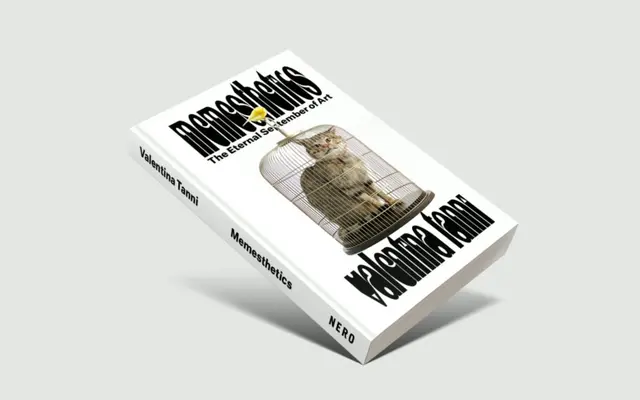
Naive
Writtenshape · Raphaël de La Morinerie & Benoît Brun
A single-weight geometric display face reinterpreting Flemming Bau's circle-based 1972 typeface, extended with new uppercase characters for contemporary use.
Built on the circle-based logic of Flemming Bau's original 1972 Bau typeface, this revival adds a full uppercase set drawn on a geometric system that was absent from the source material. The letterforms carry a deliberately resistant quality, slowing reading in favour of visual impact, which makes them suited to posters, logotypes and headlines where attention is the primary goal. Designed by Raphaël de La Morinerie and Benoît Brun at Writtenshape, it covers an extended Latin character set.
Circle-based letterforms with psychedelic and geometric construction, derived from Flemming Bau's 1970s Bau typeface; clearly display-oriented with shapes that resist instant reading and suit headline and poster use.